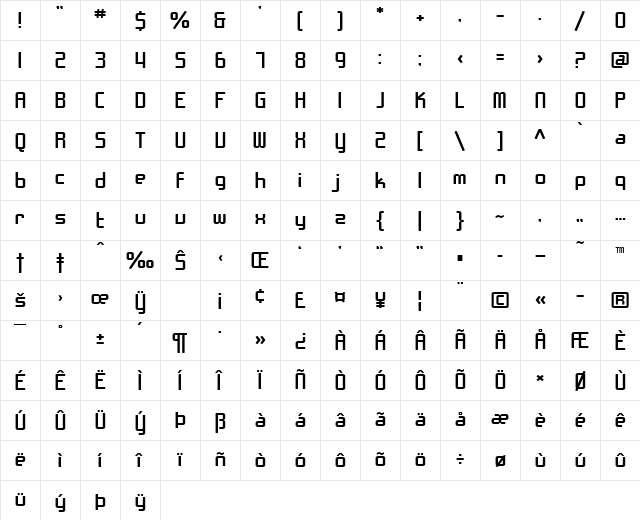
SF Chrome Fenders Extended Regular
Designer: ShyFonts Type Foundry
SF Chrome Fenders Extended Family
Design Context for SF Chrome Fenders Extended
SF Chrome Fenders Extended is a composed and adaptable typeface that performs quietly and consistently across a wide range of design contexts.